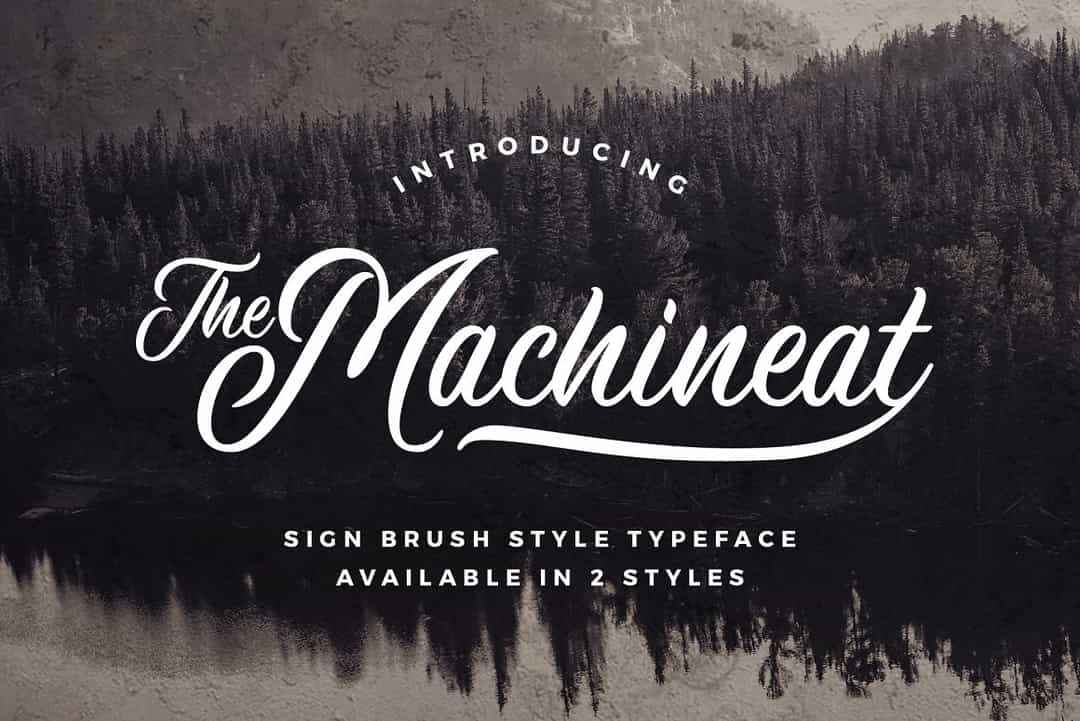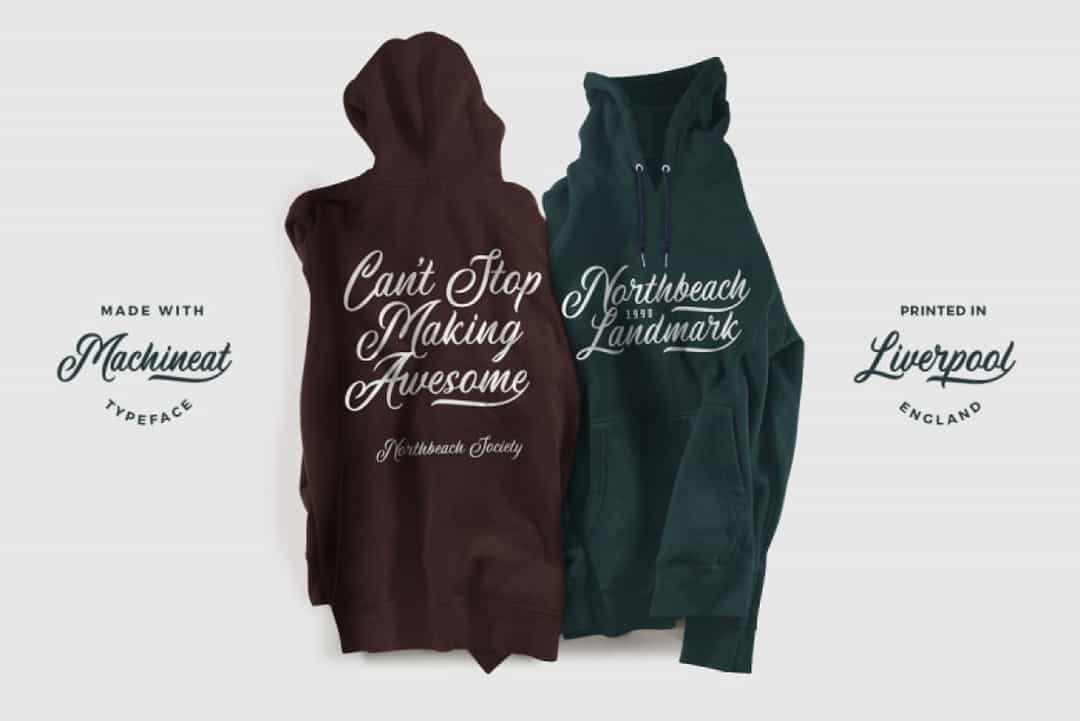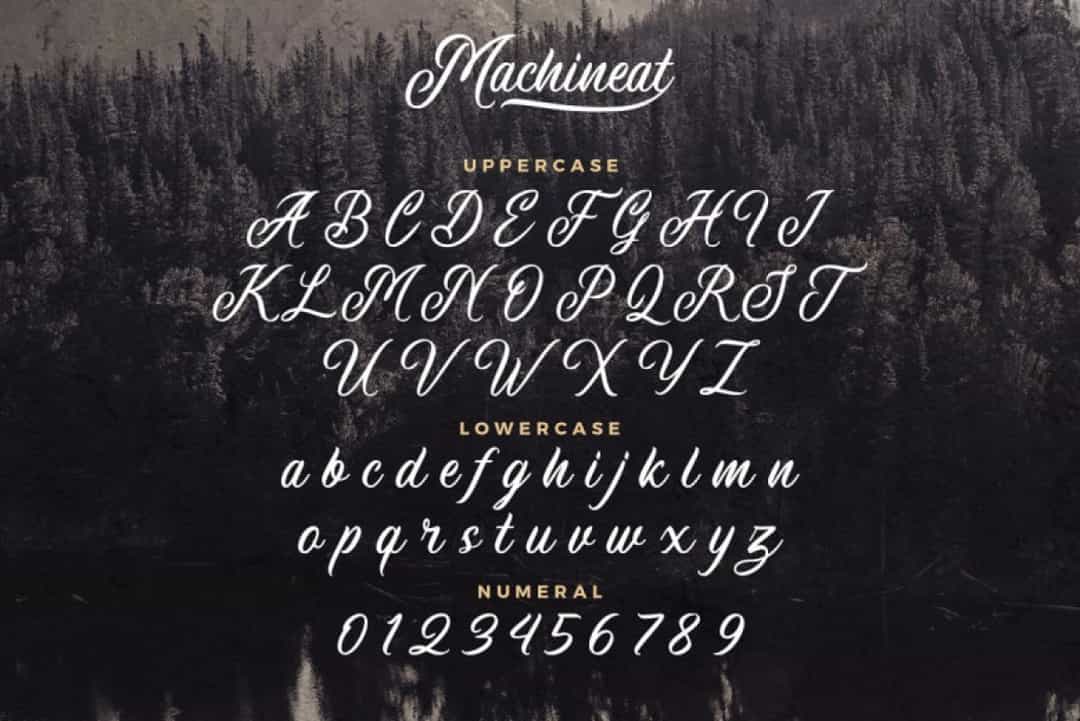
Machineat is indeed based on hand-painted sign look and feel so it adds a very natural and organic look to your projects that a hand-made typeface can provide, and could be best suited for Logotype, Letterhead, Poster, Apparel Design, Label, Advertisements, Product designs, Mural and many more.